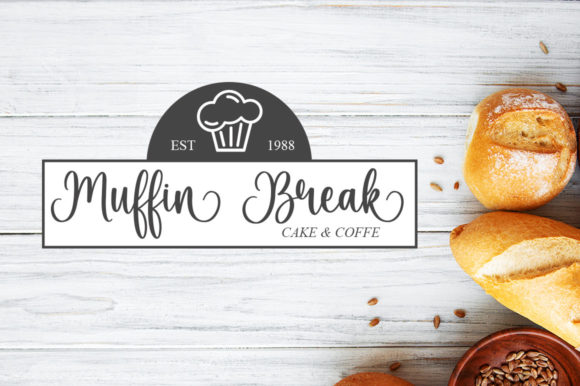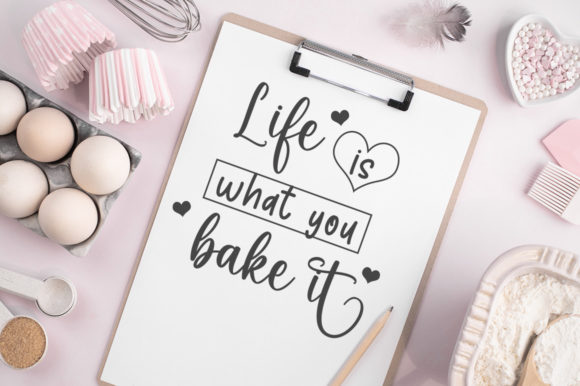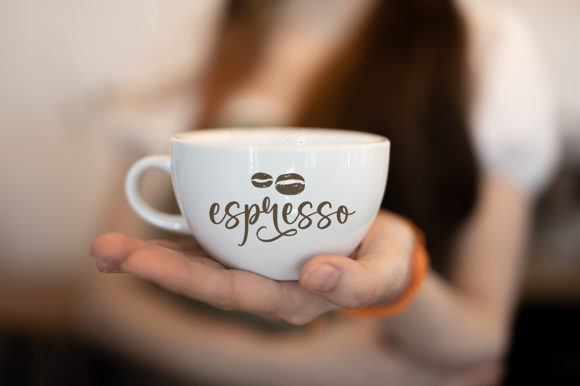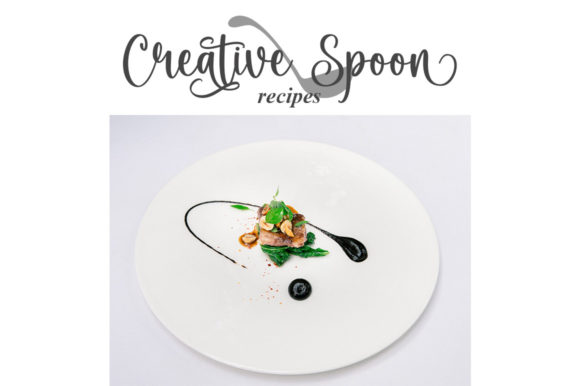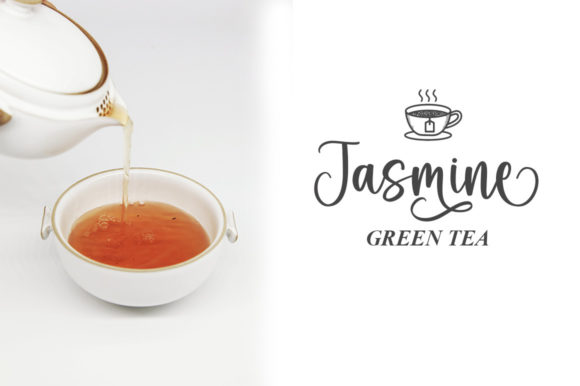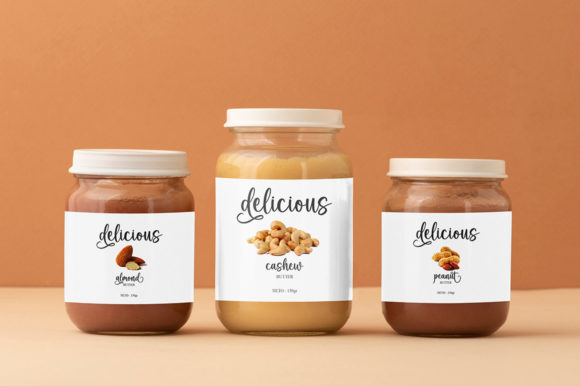
Introducing Almond Butter Font: Elevate Your Designs with Elegance
Are you a designer or crafter looking for a font that embodies delicacy, elegance, and a touch of sophistication? Look no further than Almond Butter Font. This beautiful, handwritten font is designed to bring a sense of refinement and poise to your creative projects. With its flowing lines and well-balanced characters, Almond Butter Font is the perfect addition to your design arsenal.
The Characteristics of Almond Butter Font
Almond Butter Font is a delicate, elegant, and flowing handwritten font that boasts beautiful and well-balanced characters. Its unique design makes it an incredibly versatile font, capable of complementing a wide range of designs. Whether you’re working on a branding project, a craft, or a digital design, Almond Butter Font is sure to make your ideas come alive.
What Makes Almond Butter Font Stand Out
So, what sets Almond Butter Font apart from other fonts? Here are a few key features that make it a standout:
- Delicate and Elegant: Almond Butter Font features delicate and elegant lines that give it a sophisticated feel.
- Flowing Handwritten Style: The font’s flowing handwritten style makes it perfect for designs that require a personal touch.
- Well-Balanced Characters: Each character in Almond Butter Font is carefully crafted to ensure balance and harmony, making it easy to read and visually appealing.
- Versatility: Almond Butter Font can be used in a wide range of designs, from branding and advertising to crafting and digital design.
How to Use Almond Butter Font in Your Designs
Almond Butter Font is an incredibly versatile font that can be used in a variety of design projects. Here are a few ideas to get you started:
- Branding and Logo Design: Use Almond Butter Font to create elegant and sophisticated brand identities that stand out from the crowd.
- Digital Design: Add a touch of elegance to your digital designs, such as website headers, social media graphics, and email newsletters.
- Crafting and Scrapbooking: Use Almond Butter Font to add a personal touch to your crafts and scrapbooking projects.
- Advertising and Marketing: Almond Butter Font is perfect for creating eye-catching ads and marketing materials that require a touch of sophistication.
Why Designers and Crafters Love Almond Butter Font
Designers and crafters love Almond Butter Font for its unique combination of elegance, versatility, and charm. Here are a few reasons why:
- Ease of Use: Almond Butter Font is easy to use and pairs well with a wide range of designs.
- High-Quality Design: The font is designed with high-quality lines and well-balanced characters, making it perfect for professional designs.
- Unique Style: Almond Butter Font has a unique style that sets it apart from other fonts, making it perfect for designers and crafters who want to add a personal touch to their projects.
In conclusion, Almond Butter Font is a beautiful, elegant, and versatile handwritten font that is perfect for designers and crafters looking to add a touch of sophistication to their projects. With its delicate lines, well-balanced characters, and flowing style, Almond Butter Font is sure to make your designs come alive. Whether you’re working on a branding project, a craft, or a digital design, Almond Butter Font is the perfect addition to your design arsenal.
Get Ready to Elevate Your Designs with Almond Butter Font